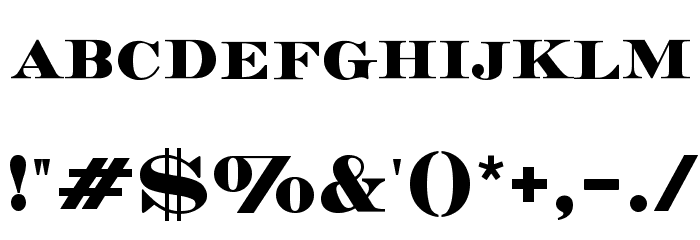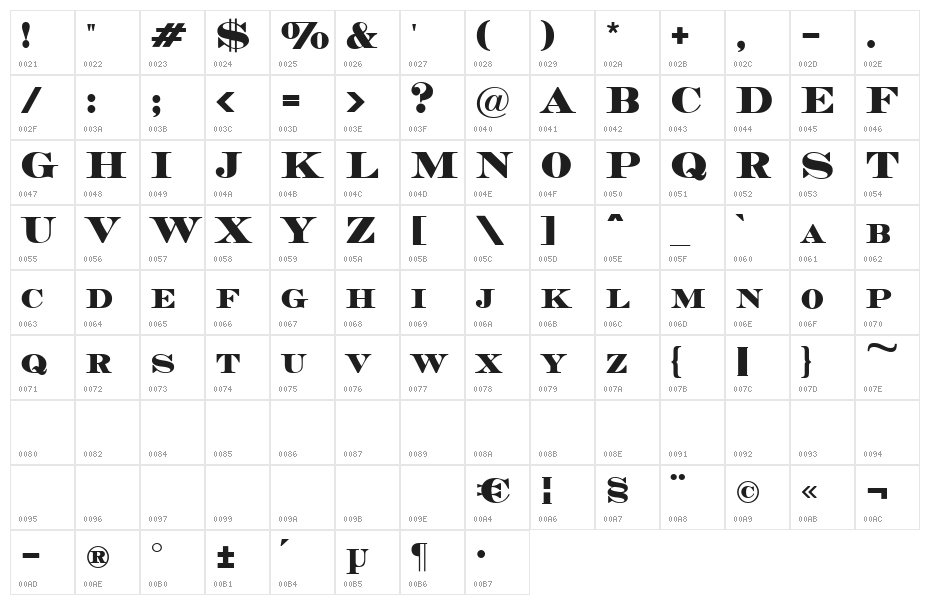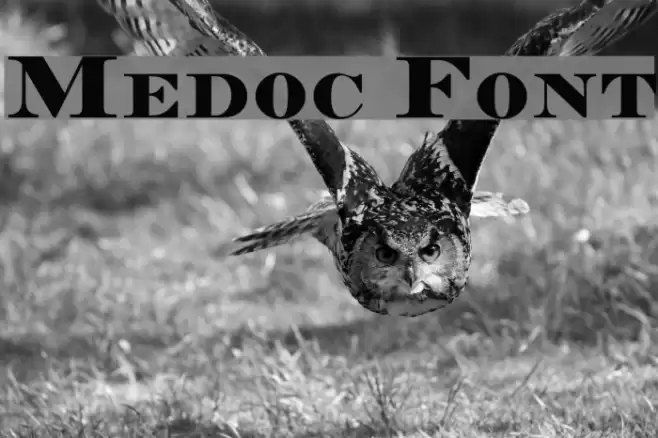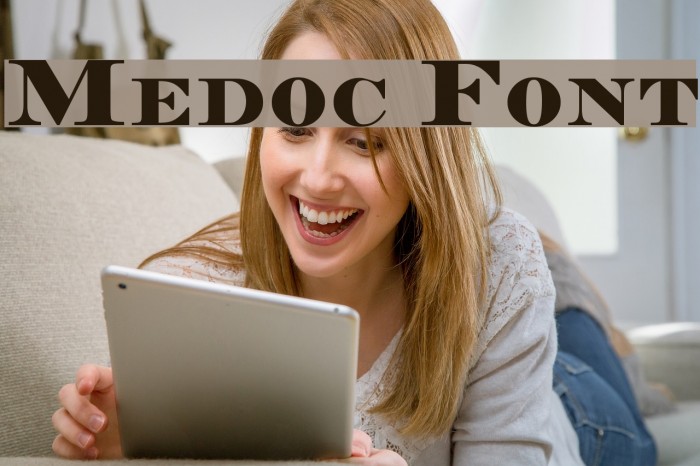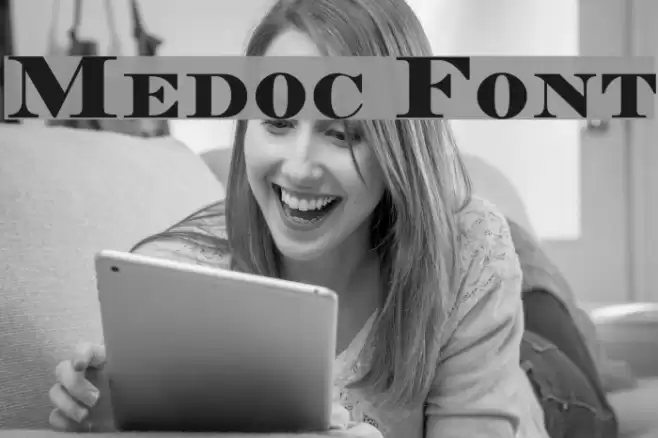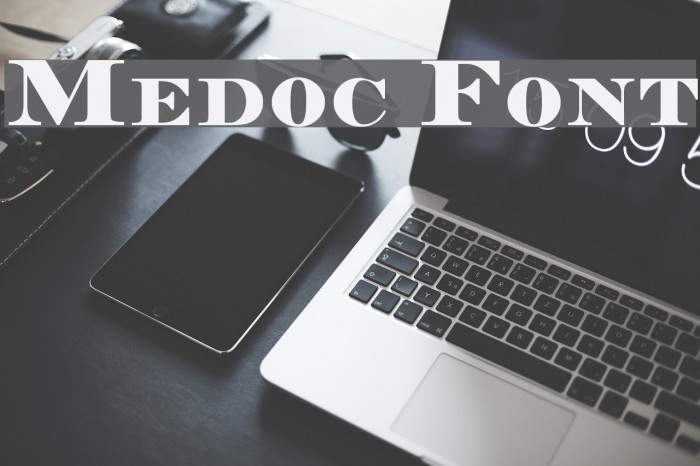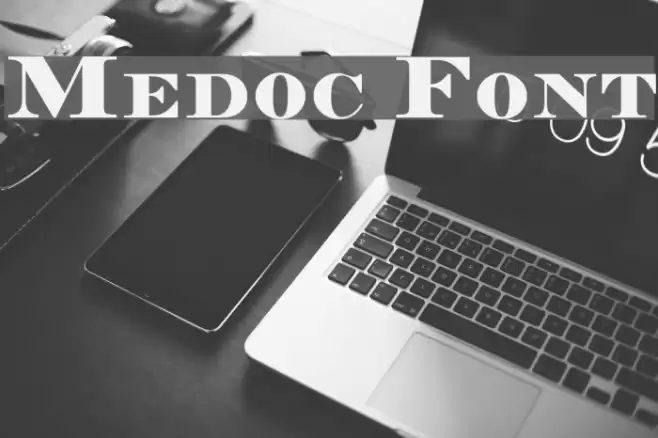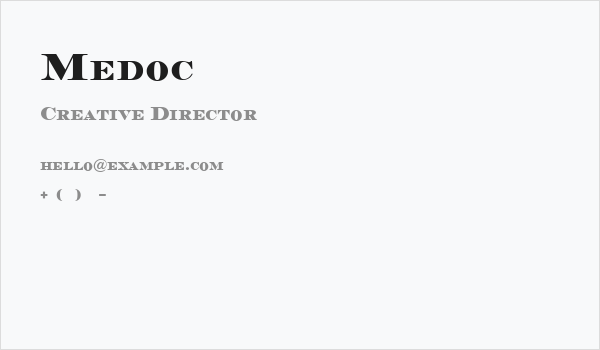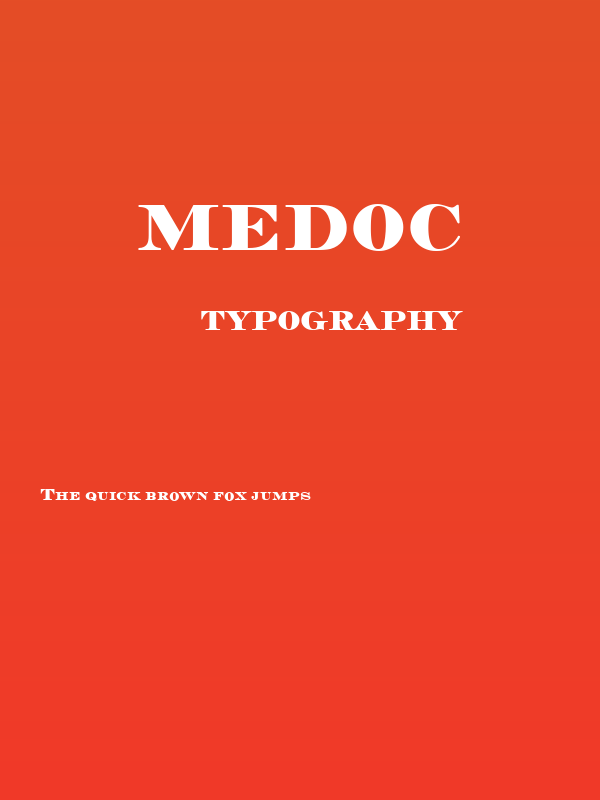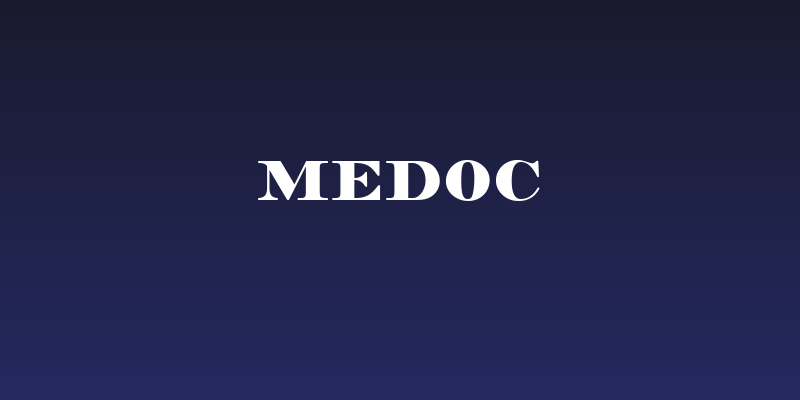
Medoc Font
Medoc Description
This font exhibits a bold and authoritative presence, characterized by its thick, strong strokes and high contrast between thick and thin lines. The serifs are pronounced and add a classic touch to the overall design, making it suitable for impactful headlines and titles. The uppercase letters are particularly striking, with a sense of grandeur and formality. The lowercase letters maintain the same boldness, ensuring consistency throughout. The numerals and special characters are equally robust, providing a cohesive look across all text elements. The font's design is reminiscent of traditional serif styles but with a modern twist that enhances its versatility.
| Proposed Projects | Ideal for use in branding, editorial design, book covers, and any project requiring a strong, authoritative typeface. |